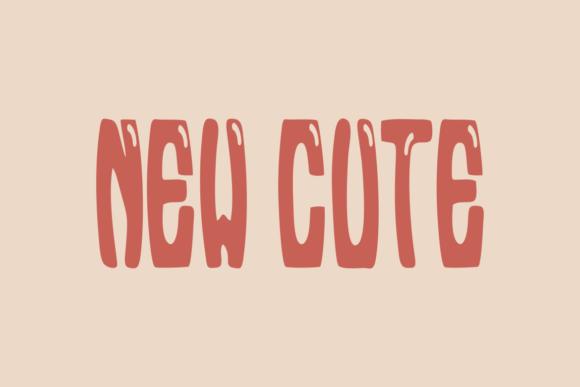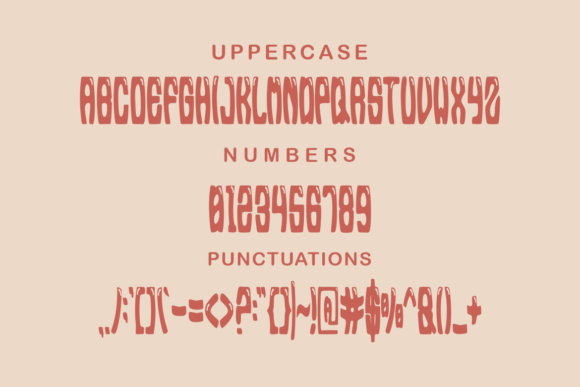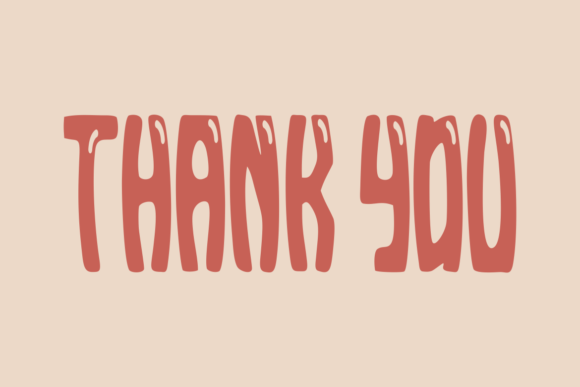
Introduction to Lucuneey Font
Do you ever find yourself staring at a blank canvas, struggling to bring your creative vision to life? For designers, this moment is all too familiar. But what if you had the perfect tool to spark inspiration and add a dash of personality to your project? Enter the delightful Lucuneey Font, a free download that’s about to become your new best friend.
This high-quality display font is more than just a pretty face – it’s a design resource that’s bursting with character. With its transparent background and playful, whimsical style, Lucuneey Font is the perfect addition to any creative project that needs a touch of joy. Whether you’re designing a children’s book, a social media campaign, or a wedding invitation, this font is sure to bring a smile to your face and a sparkle to your design.
Key Features of Lucuneey Font
- Unique, hand-crafted design elements that add a touch of elegance and sophistication to any creative project.
Honest Review: Lucuneey Font
As a designer, I’m always on the lookout for high-quality design resources to enhance my creative projects. Recently, I came across the Lucuneey Font, and I’m excited to share my honest review.
- Unique and elegant design style that sets it apart from other fonts.
- Perfect for creative projects that require a touch of sophistication and class.
- Limited font variations and styles, which may not be suitable for projects requiring a wide range of font options.
- No bold or italic versions available, which may limit its use in certain design scenarios.
Overall, I’m impressed with the Lucuneey Font‘s unique design style and high-quality rendering. While it may have some limitations, it’s an excellent addition to any designer’s toolkit, especially for creative projects requiring a touch of elegance.
The Lucuneey Font is ideal for creative projects, such as branding, marketing materials, and social media graphics. It’s also great for use in presentations, reports, and other documents where a clean and modern font is desired.